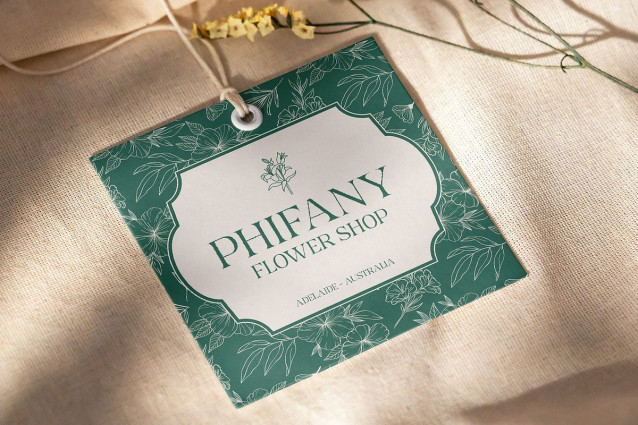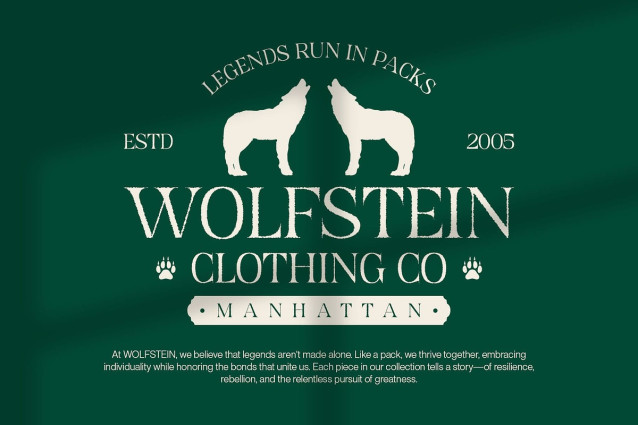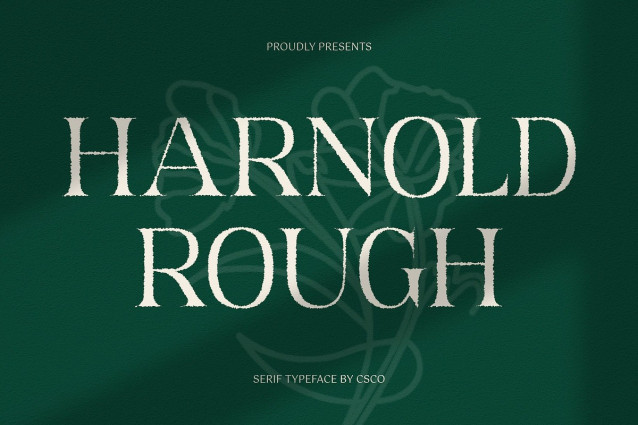
Harnold Rough Font
Harnold Rough Font is a modern serif font that combines minimalist sophistication with a subtle textured finish, offering a perfect blend of elegance and character. Each letter carries a slightly rough detail, adding depth and authenticity to the design. This refined imperfection makes Harnold Rough ideal for projects that require a classic yet bold aesthetic, standing out while maintaining a sense of timeless beauty.
Sophisticated Yet Bold With its sharp serif structure and textured detailing, Harnold Rough delivers a charismatic and distinctive presence. The carefully designed rough effect enhances its visual appeal, making it suitable for projects that demand refinement with a raw edge. Whether used in editorial layouts, book covers, or corporate identities.
Perfect for Premium Branding & Editorial Design Harnold Rough was crafted with luxury branding and high-end publishing in mind. Its sophisticated letterforms and subtle ruggedness make it ideal for logos, magazine headlines, fashion labels, and premium packaging. The textured finish enhances visual depth, allowing brands to project a sense of prestige, heritage, and authenticity.
Versatile for Elegant & Artistic Projects Beyond branding and editorial use, Harnold Rough is an excellent choice for artistic and creative designs. Its organic roughness brings a unique charm to invitations, posters, advertising, and handcrafted product designs. The balance between classic typography and subtle imperfections gives it a vintage-meets-modern appeal.